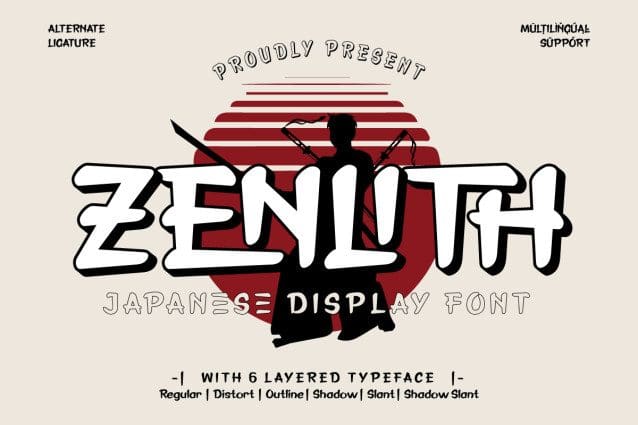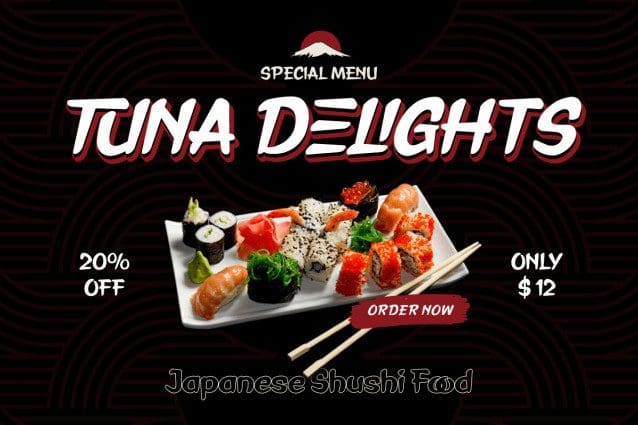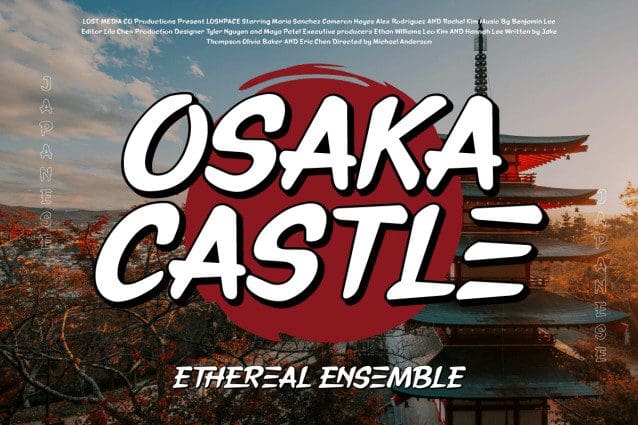
Zenlith Japan Display Font
Zenlith Japan Display Font is a custom design typeface inspired by Japanese aesthetics, creating a look that combines traditional elegance with modern elements. This font is designed to convey a distinctly Japanese feel, suitable for a variety of design projects related to Japanese culture or Asian aesthetics.
Each letter in Zenlith Japan Display Font is designed with precision and subtlety, creating an elegant and artistic impression. This font adopts elements of Japanese typography but maintains a contemporary touch to maintain a balance between tradition and innovation.
This font can be used to visualize text in a variety of contexts, such as graphic designs, promotional materials, or even logos, giving it a distinctive and attractive Japanese feel.
Zenlith Japan Display Font not only conveys the aesthetic character of Japan but also expresses the balance and peace often associated with Japanese culture. Therefore, this font can be an ideal choice for those who want to create designs that embrace traditional Japanese beauty in a modern form.